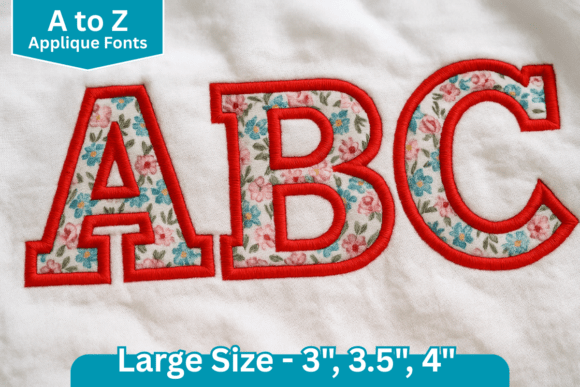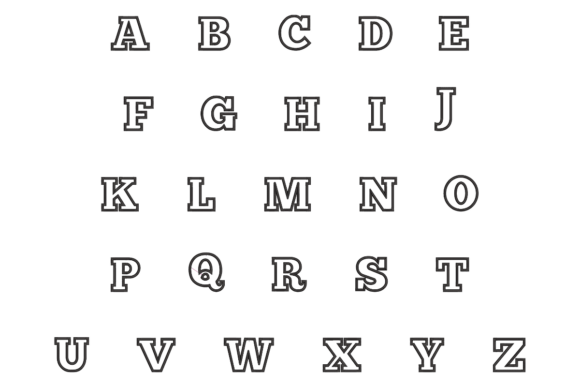
Champion Stitch Applique Embroidery Font
This applique alphabet embroidery font includes all A–Z capital letters. Each letter is carefully digitized for clean stitching and comes in 3 sizes.
Perfect for monograms, names, sportswear, kids’ projects, bags, and home décor items. Add a bold handmade touch to your embroidery projects with this versatile applique font set.